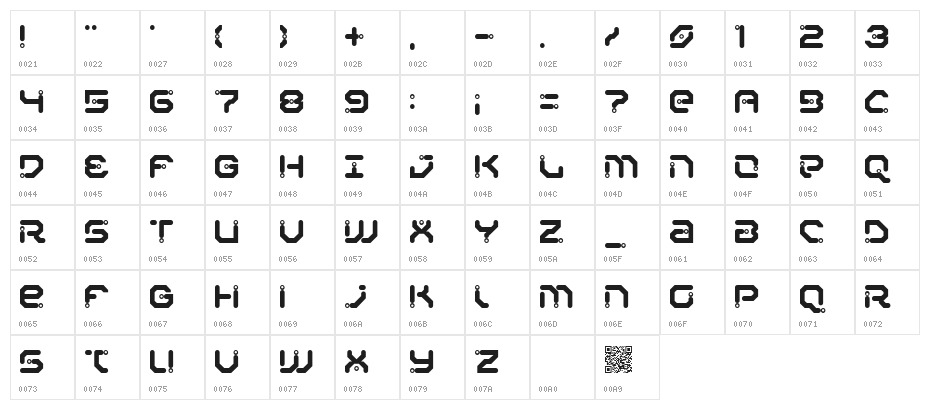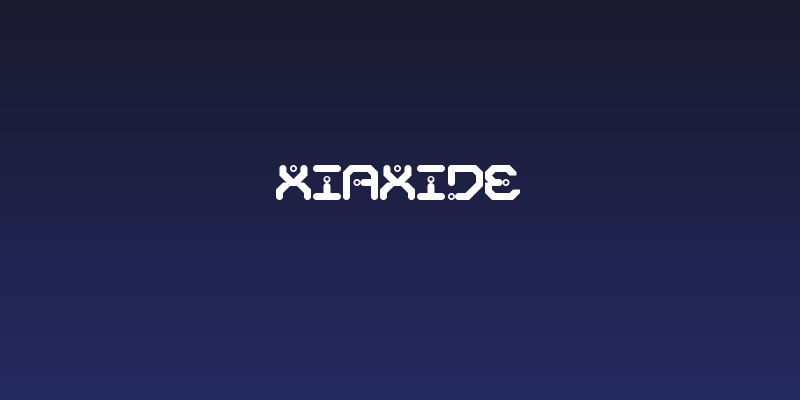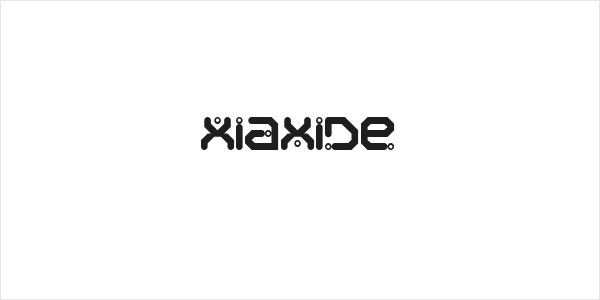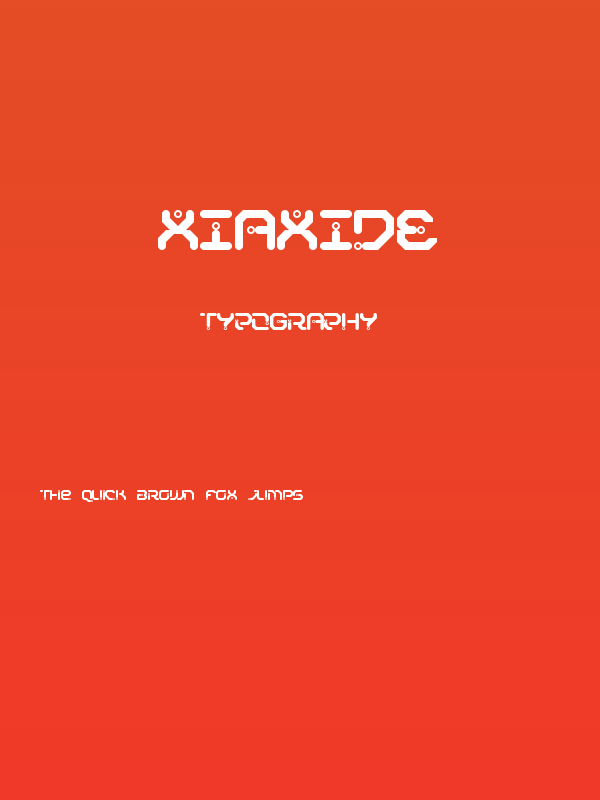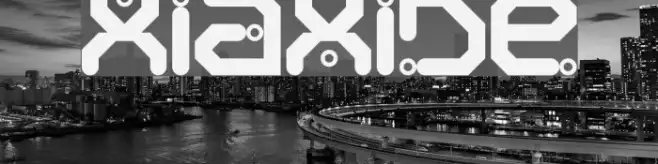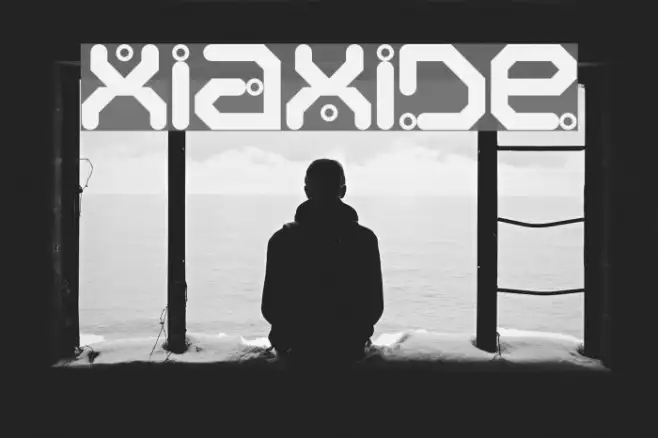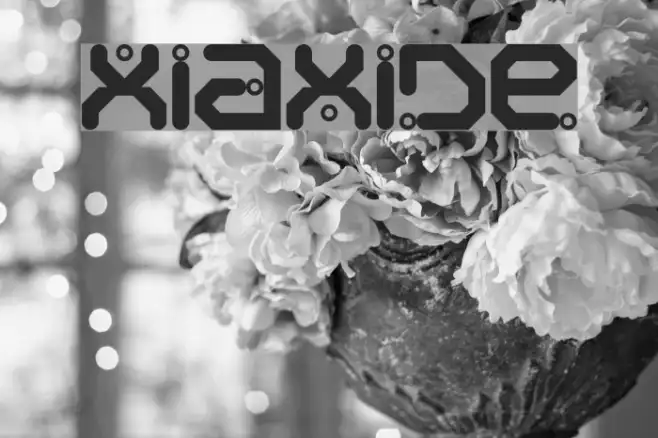
Xiaxide Font
Xiaxide Description
This font features a futuristic and digital aesthetic, characterized by its geometric shapes and circuit-like design elements. Each character is constructed with bold, angular lines and small circular accents that resemble electronic components. The uppercase and lowercase letters maintain a consistent style, creating a cohesive and modern look. The numerals and special characters follow the same design principles, ensuring uniformity across all glyphs. This font's unique style makes it stand out, ideal for projects that require a tech-savvy or sci-fi theme.
| Proposed Projects | Ideal for tech-related branding, sci-fi movie posters, video game titles, and digital art projects. |